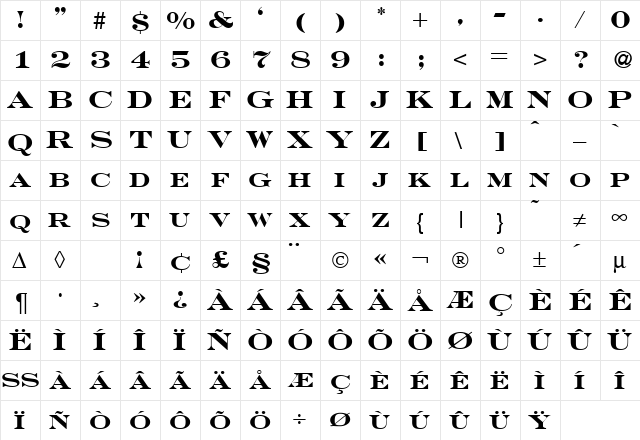
GravureRoman Bold
Design Context for GravureRoman Typeface
GravureRoman takes a measured approach to typography — its balanced proportions and neutral character make it a reliable workhorse for both digital and print work. The heavy weight commands attention and anchors typographic hierarchies.